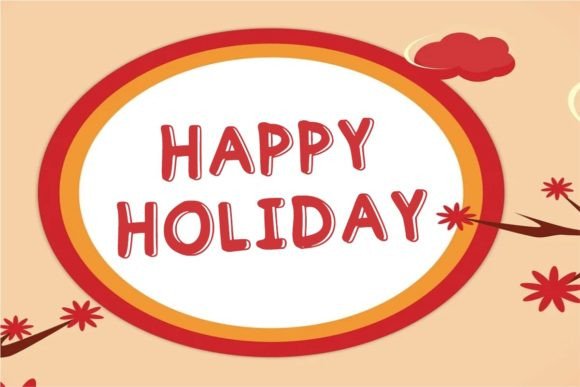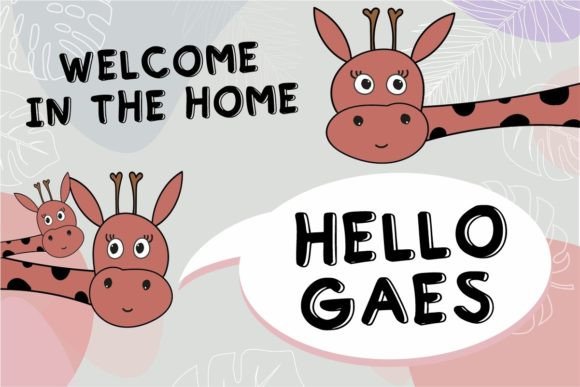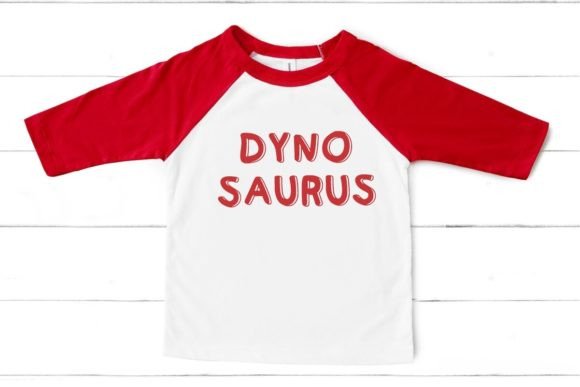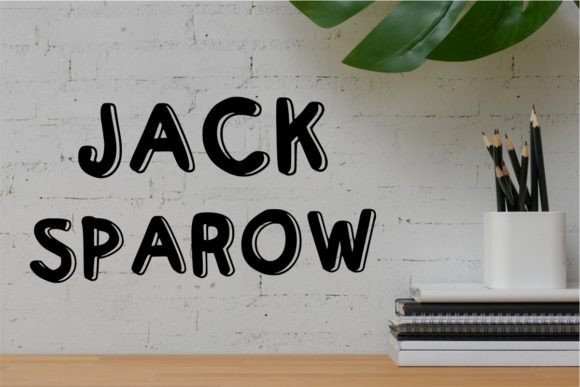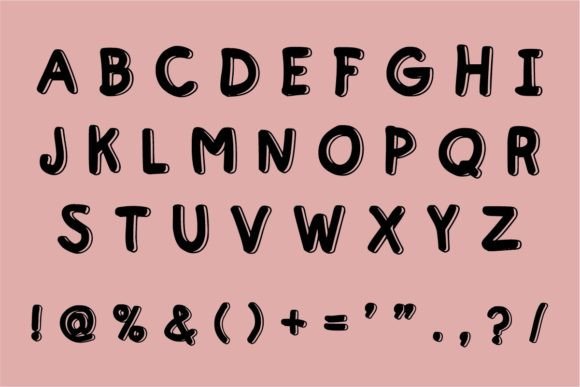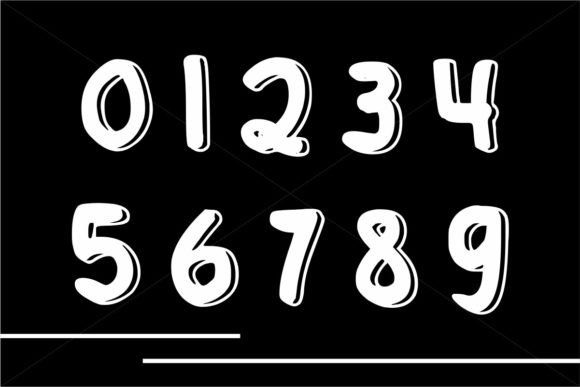
Introducing Comix Graphia Font: The Ultimate Display Font for Creative Designs
Are you looking for a font that can add a touch of uniqueness and sweetness to your designs? Look no further than Comix Graphia Font! This display font is perfect for designers and crafters who want to create visually appealing projects that stand out from the crowd. In this article, we’ll explore the features and benefits of Comix Graphia Font and why it’s a great choice for your next design project.
What is Comix Graphia Font?
Comix Graphia Font is a very unique and sweet display font that is perfect for a variety of design projects. Its distinctive style makes it an excellent choice for designs related to cartoons, children’s games, and other creations that require a beautiful touch. The font’s playful and fun vibe is sure to capture the attention of your audience and leave a lasting impression.
Key Features of Comix Graphia Font
- Unique and Sweet Design: Comix Graphia Font has a one-of-a-kind design that is both sweet and eye-catching. Its unique style makes it perfect for designers who want to create projects that stand out from the crowd.
- Display Font: Comix Graphia Font is a display font, which means it’s designed to be used at larger sizes, making it perfect for headlines, titles, and other design elements that need to make a statement.
- Playful and Fun Vibe: The font’s playful and fun vibe makes it perfect for designs related to cartoons, children’s games, and other creations that require a lighthearted touch.
- Easy to Read: Despite its unique design, Comix Graphia Font is easy to read, making it perfect for designs that require a font that is both visually appealing and legible.
Benefits of Using Comix Graphia Font
So, why should you choose Comix Graphia Font for your next design project? Here are just a few benefits of using this amazing font:
- Adds a Touch of Uniqueness: Comix Graphia Font adds a touch of uniqueness to your designs, making them stand out from the crowd.
- Perfect for Creative Projects: The font’s playful and fun vibe makes it perfect for creative projects, such as cartoon designs, children’s games, and other creations that require a lighthearted touch.
- Eases Design Process: Comix Graphia Font is easy to use and pairs well with a variety of other fonts, making it easy to incorporate into your design projects.
- Scalable: The font is scalable, making it perfect for designs that need to be used at various sizes.
How to Use Comix Graphia Font
Using Comix Graphia Font is easy! Here are a few tips for incorporating this amazing font into your design projects:
- Pair with Other Fonts: Comix Graphia Font pairs well with a variety of other fonts, making it easy to create visually appealing designs.
- Use for Headlines and Titles: The font’s display style makes it perfect for headlines and titles, where you want to make a statement.
- Add a Pop of Color: Comix Graphia Font looks great with a pop of color, making it perfect for designs that require a bold and eye-catching element.
In conclusion, Comix Graphia Font is a unique and sweet display font that is perfect for designers and crafters who want to create visually appealing projects. Its playful and fun vibe makes it perfect for designs related to cartoons, children’s games, and other creations that require a beautiful touch. With its ease of use, scalability, and versatility, Comix Graphia Font is a great choice for your next design project.